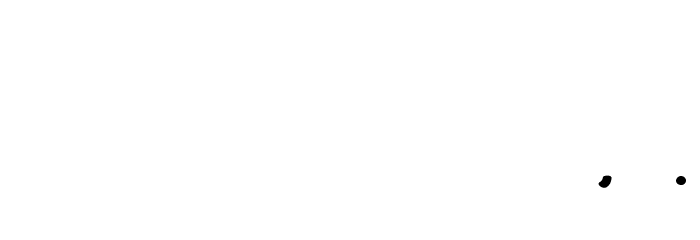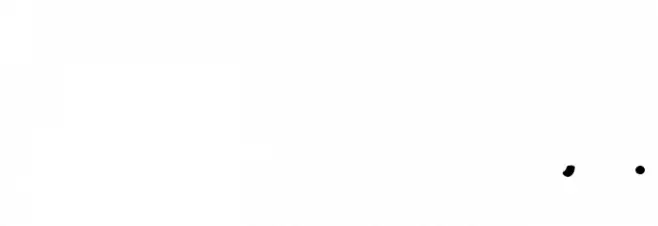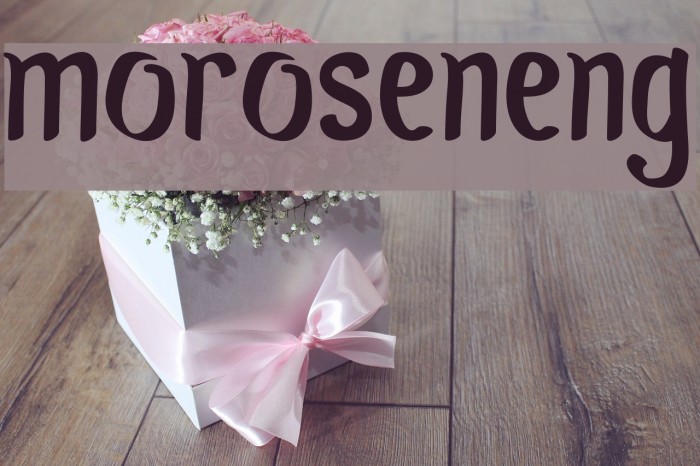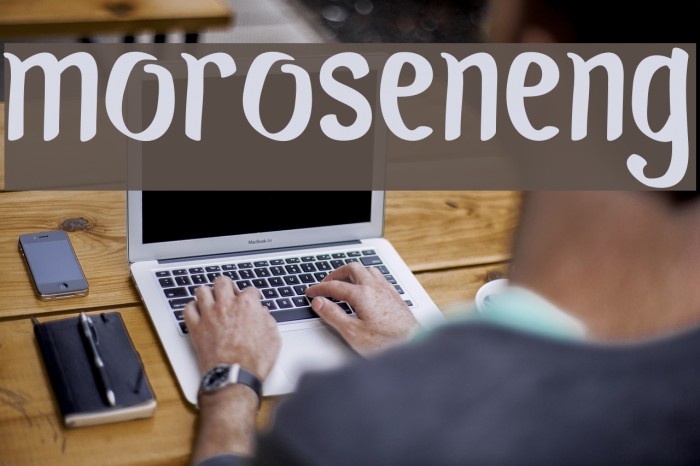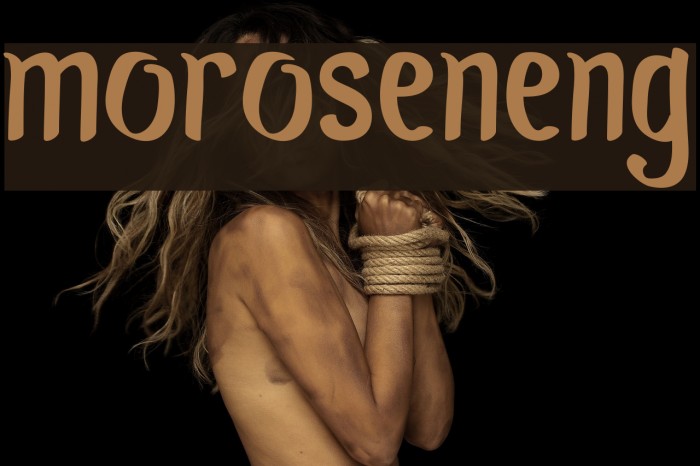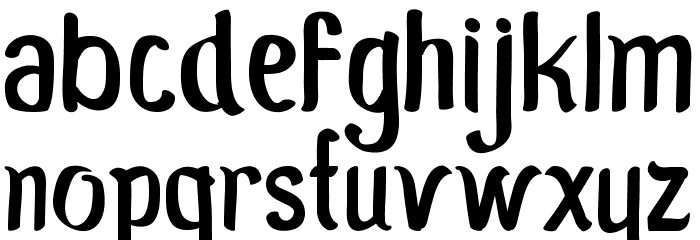
MoroSeneng Font
MoroSeneng Description
This font features a playful and whimsical style with a handwritten appearance. The characters are slightly irregular, giving it a casual and friendly feel. The strokes are moderately thick, providing good readability while maintaining a unique charm. The letters have a slight slant, adding to the informal and dynamic look. The font is well-suited for creative projects that require a personal touch, such as invitations, greeting cards, or children's books. Its distinctiveness makes it ideal for headlines or short text where personality is key.
A playful, handwritten-style font with a casual and friendly appearance from Uncategorized fonts.
- Proposed Projects: Ideal for invitations, greeting cards, children's books, and creative headlines.
- Overall Style: Casual, Playful
- Use Case: Headlines, Invitations, Greeting Cards